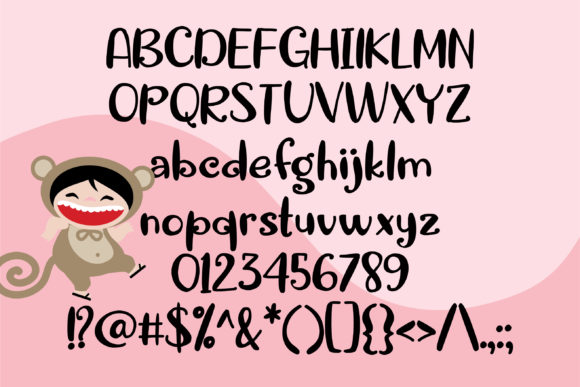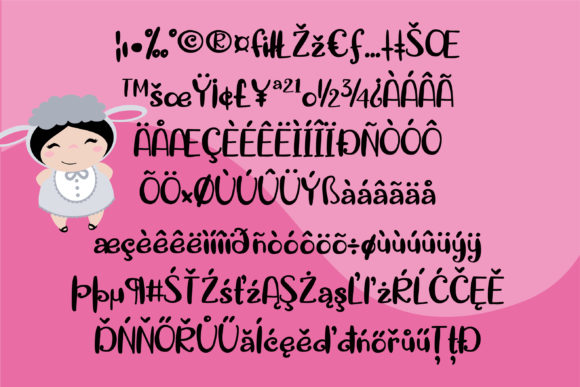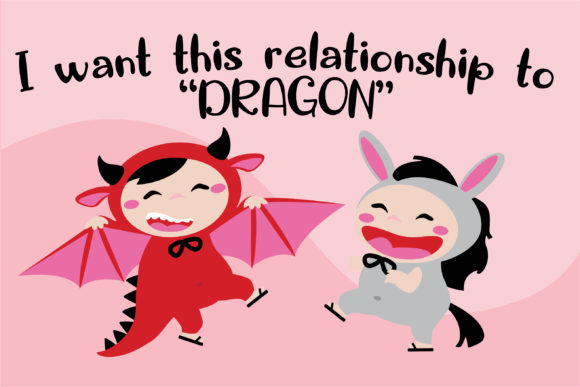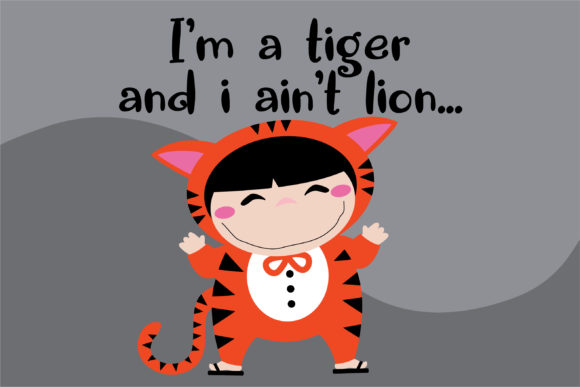
The Belly Button Font: A Soft, Squishy Delight for Designers
I still remember the project that led me to discover the Belly Button Font. I was working on a whimsical branding campaign for a children’s toy company, and I needed a font that would capture the playful, rounded essence of their products. After hours of scrolling through font libraries, I stumbled upon this hidden gem – a hand-crafted font that was rounded, full, soft, and squishy. It was love at first sight! 💕
• ✨ The Belly Button Font’s unique, hand-crafted design makes it stand out from more traditional fonts.
• ✅ Its rounded edges and soft curves evoke a sense of warmth and friendliness, perfect for designs aimed at children or families.
• 💡 The font’s versatility allows it to be used in a variety of contexts, from branding and packaging to digital media and crafts.
While the Belly Button Font is a delightful addition to any design project, there are a few things to keep in mind: 🤔
• ⚠️ The font’s squishy texture can make it more challenging to read in smaller sizes or at a distance.
• ⚠️ Some of the font’s more intricate details may not render well in certain applications or on lower-resolution screens.
The Belly Button Font was created with the intention of capturing the soft, squishy feel of childhood favorites – think plush toys, candy, and cozy blankets. The designer aimed to create a font that would evoke a sense of warmth and friendliness, perfect for designs aimed at children or families.
Q: What makes the Belly Button Font unique?
A: The Belly Button Font’s unique, hand-crafted design and rounded edges set it apart from more traditional fonts.
Q: Is the Belly Button Font suitable for body text?
A: While the Belly Button Font is beautiful, its squishy texture can make it more challenging to read in smaller sizes. It’s best used for headings, titles, or short paragraphs.